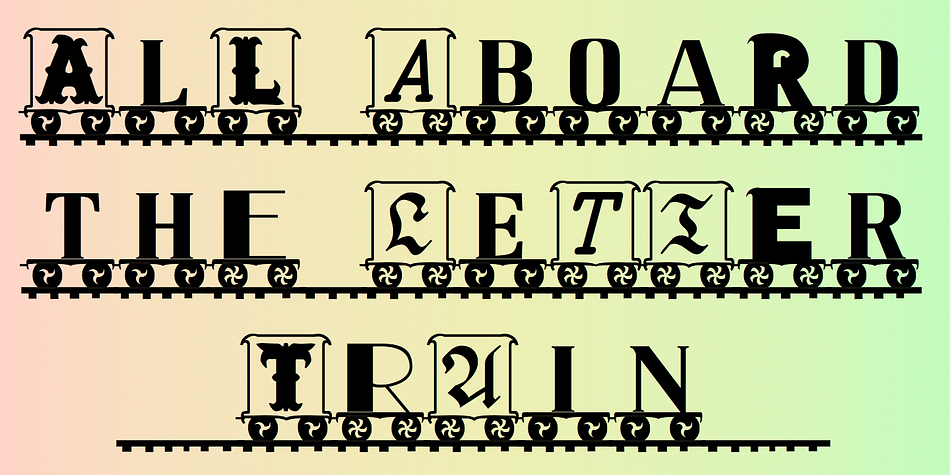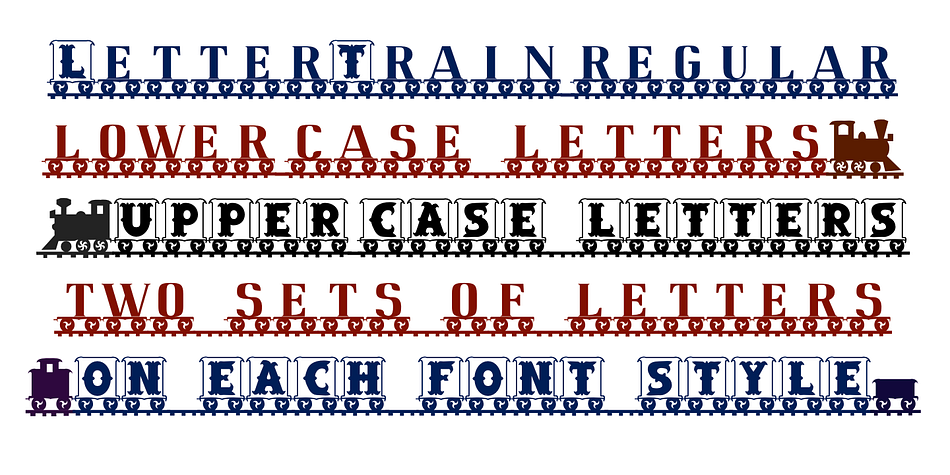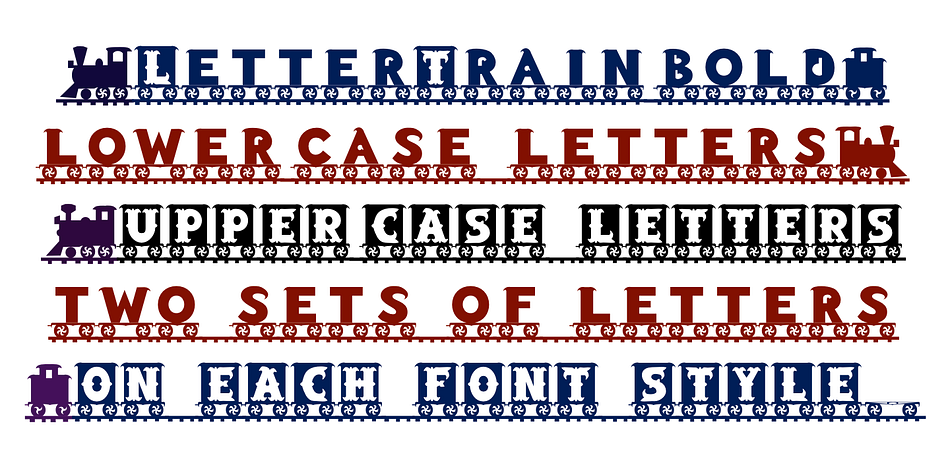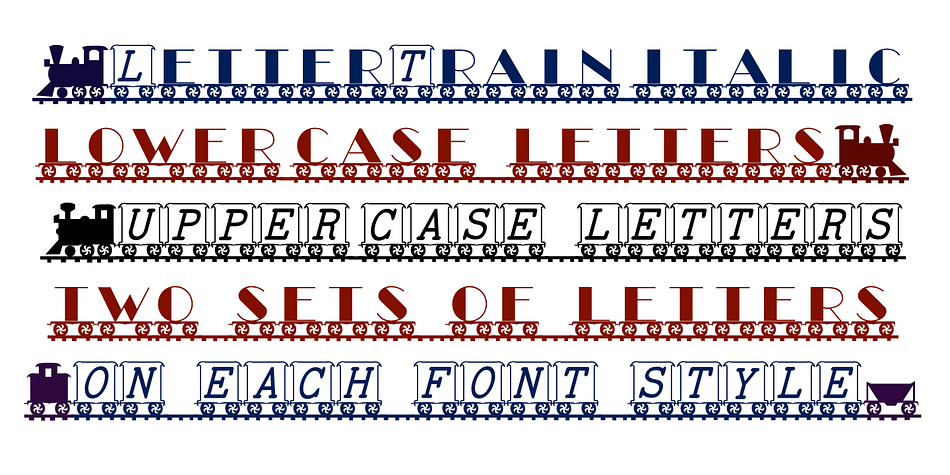
Designed by Robert Schenk, LetterTrain is a dingbat font family. This typeface has four styles and was published by Ingrimayne Type.
This set of four fonts, organized as a font family, consists of toy train cars with letters on them.
Upper and lower cases have different typefaces on them, so there are eight different type styles available. Some of the letters on the cars are from Salloon, TiredOfCourier, Glitzy, Qwatick, and PhederFrack.
To add variety using more cars without letters, use the XLaserTrain font.